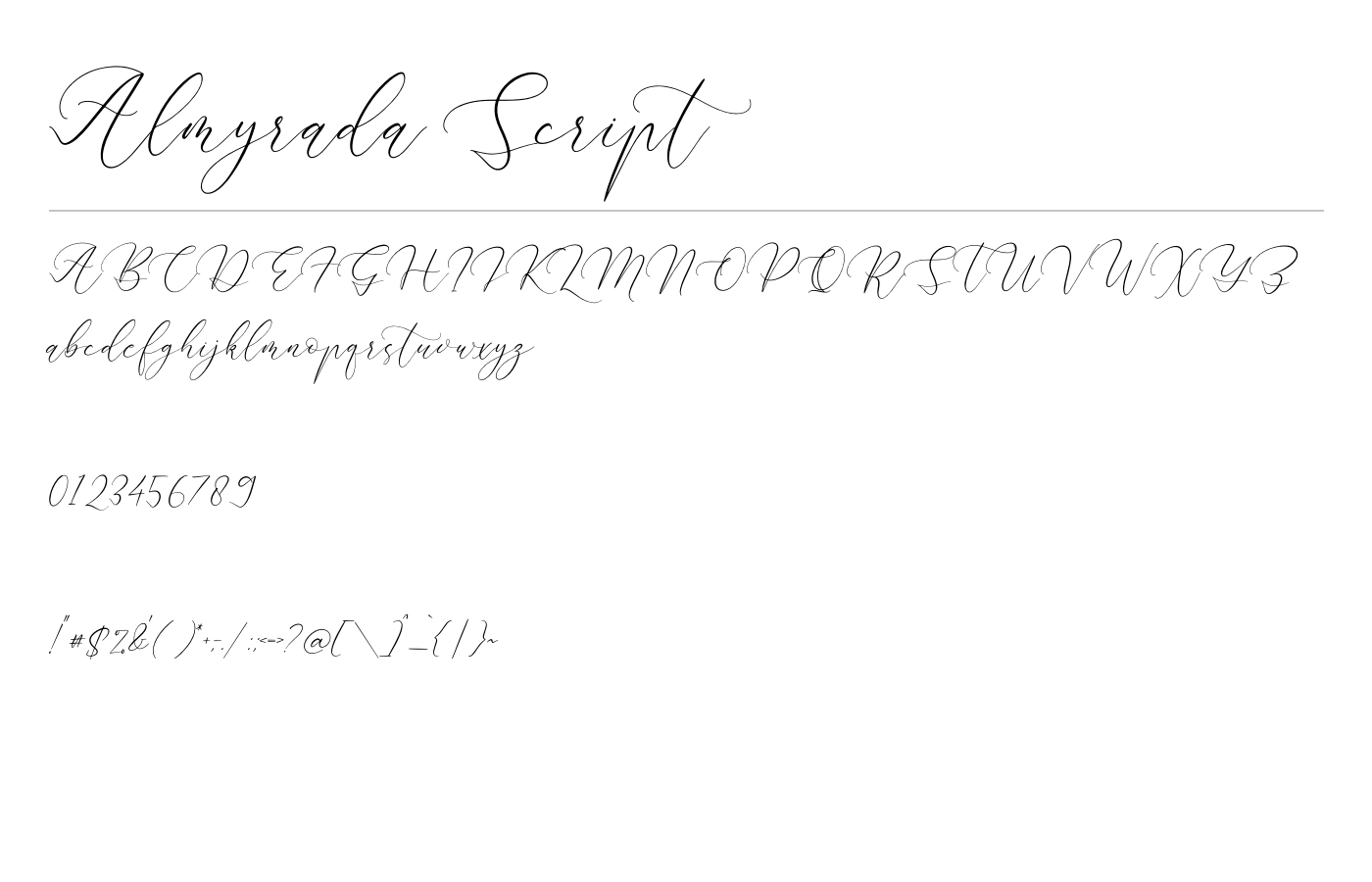
Almyrada Script is an elegant, delicate script font characterized by its fine, flowing strokes and graceful curves. With a light weight and high contrast between thick and thin lines, it exudes a sophisticated and romantic personality, making it perfect for wedding invitations, luxury branding, and stylish editorial headings. Its airy, cursive letterforms create a refined, handcrafted feel that works beautifully in designs needing a touch of elegance and charm.
Almyrada Script Font
About Almyrada Script Font
| Font family | Almyrada Script Font |
| Designer | Nanang Jamaludin |